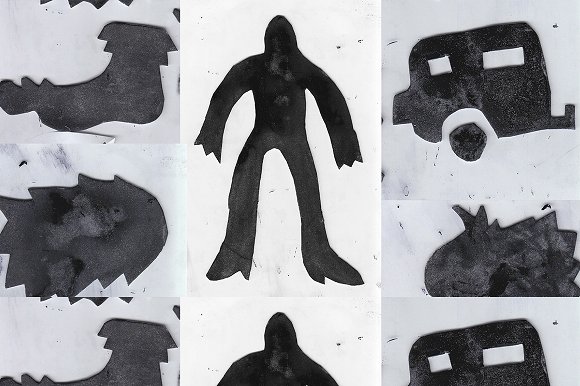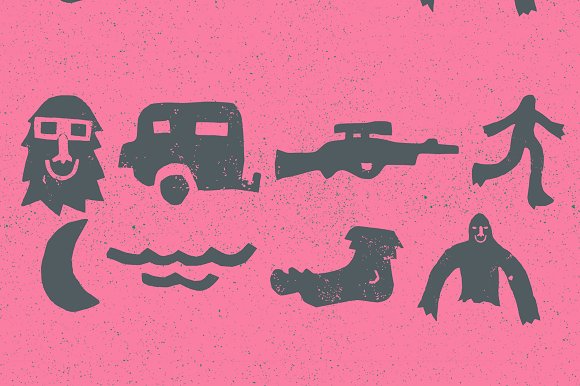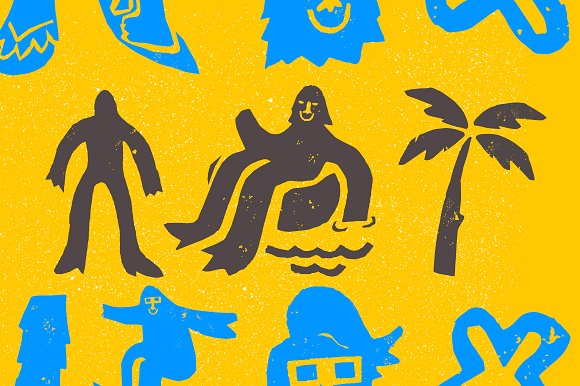
BigFoot Font
Big Foot is a whimsical and playful dingbats font created by the talented designer Rodrigo Araya. With its unique and imaginative character designs, Big Foot adds a touch of fun and creativity to any design project.
This font features a collection of charming and quirky symbols and illustrations, all inspired by the legendary creature, Bigfoot. Each character in the font represents a different depiction of Bigfoot, ranging from cute and friendly to mysterious and mischievous. These playful illustrations can be used to add a lighthearted and whimsical element to your designs.
Big Foot is perfect for a variety of design applications. Whether you’re working on children’s books, invitations, greeting cards, posters, or any project that calls for a dose of playfulness, this font offers a delightful range of options. From using the symbols as decorative elements to creating custom patterns and compositions, the possibilities for incorporating Big Foot into your designs are endless.
One of the key features of Big Foot is its versatility. The font allows you to mix and match different Bigfoot characters to create unique combinations. This gives you the freedom to explore and experiment with various arrangements, ensuring that each design using Big Foot has its own distinct personality.
When using Big Foot, it’s important to consider the overall tone and style of your design. The font lends itself well to designs with a whimsical or fantasy theme, but it can also be used creatively in unexpected ways to add a touch of playfulness to more serious projects. The key is to strike a balance between the playful nature of the font and the intended message or aesthetic of your design.
In terms of pairing Big Foot with other fonts, you have the opportunity to create interesting visual contrasts. Consider combining it with clean and minimalist sans-serif fonts for a modern and playful look, or pair it with decorative and script fonts for a more eclectic and whimsical feel. The goal is to find a balance between legibility and visual cohesion.
In conclusion, Big Foot is a delightful dingbats font that brings a sense of playfulness and creativity to your design projects. With its charming illustrations and versatile character designs, this font allows you to add a touch of whimsy to various applications. Explore the possibilities of Big Foot and let your imagination run wild as you create designs that are sure to bring a smile to anyone’s face.